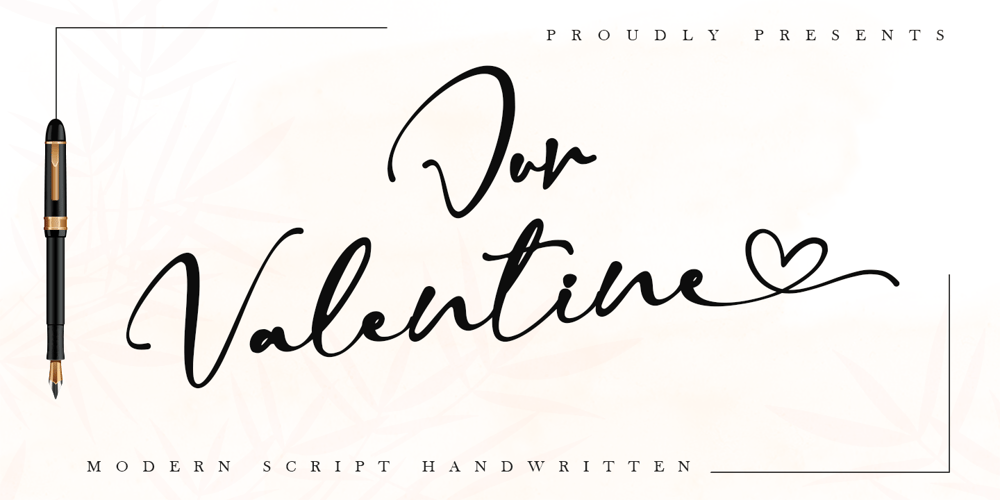
Our Valentine Font Family was designed by Thomas Aradea and published by Letterara. Our Valentine contains 1 styles and family package options. Our Valentine is a unique blend of a classic and modern font. It has a perfect style with a romantic touch. It’s perfect for wedding invites, events, invitations, escort cards, table numbers, header menus, displays, logos, slider blogs, custom addresses, stamps, packaging, greeting cards, and much more! This font is PUA encoded which means you can access all of the glyphs and swashes with ease!